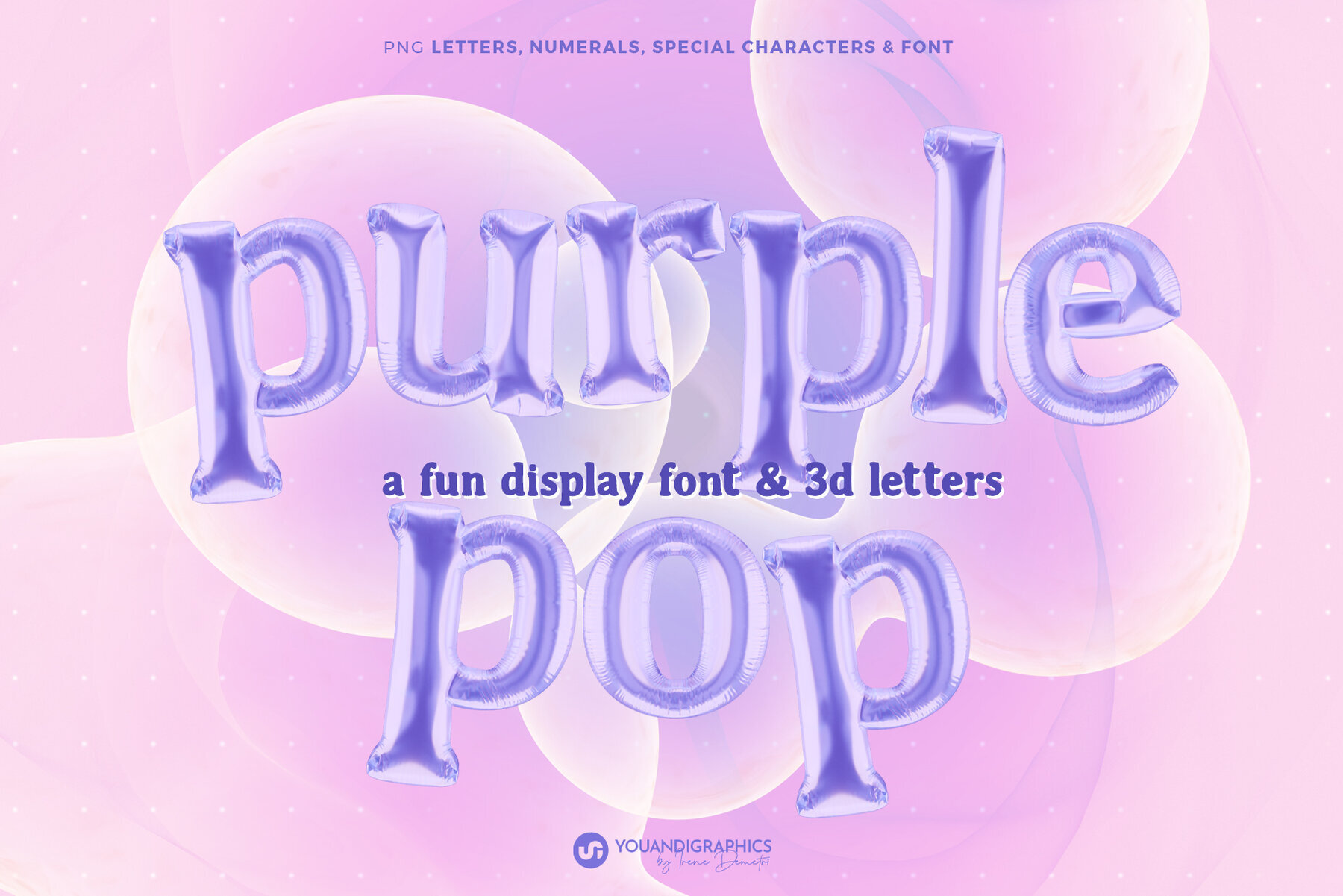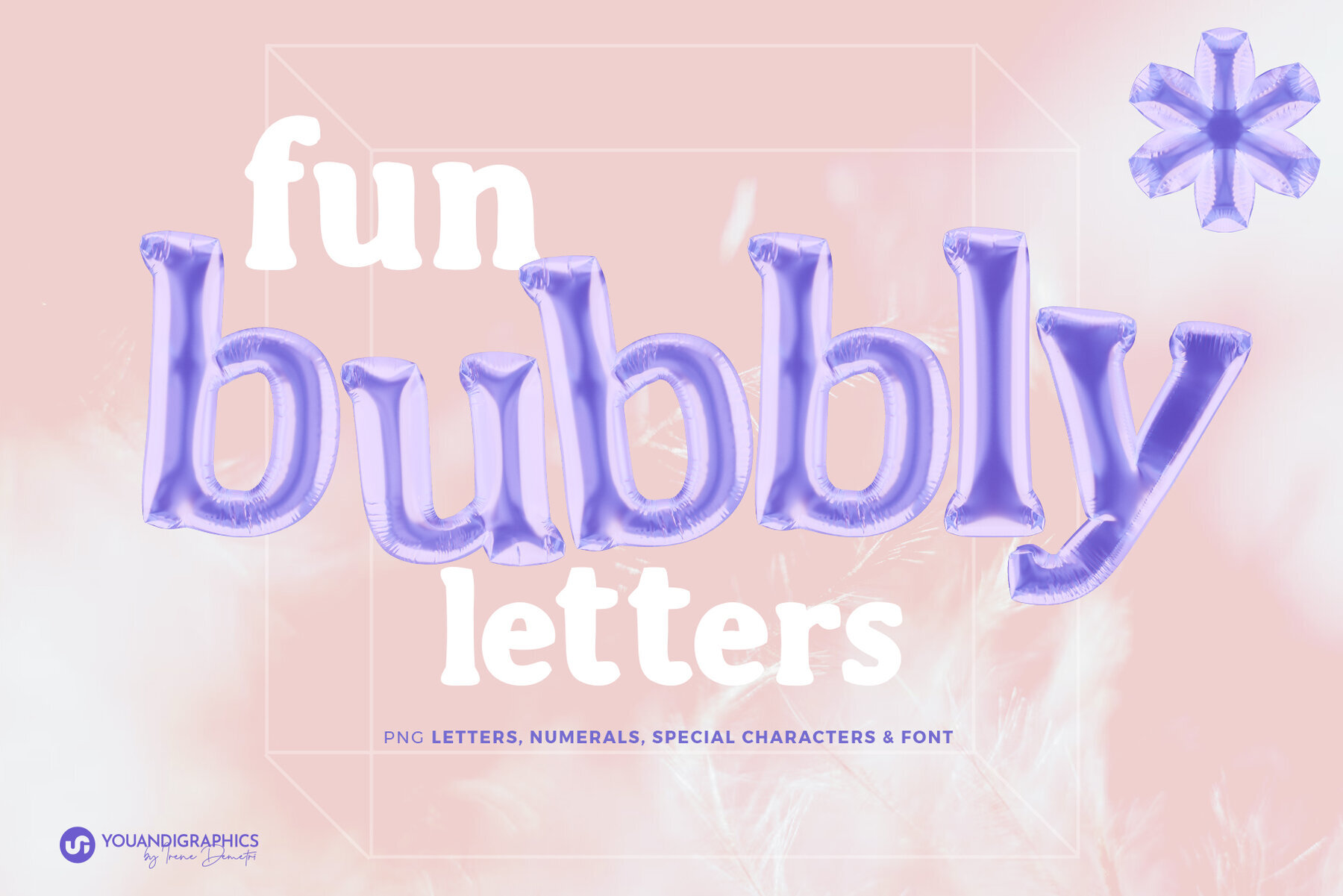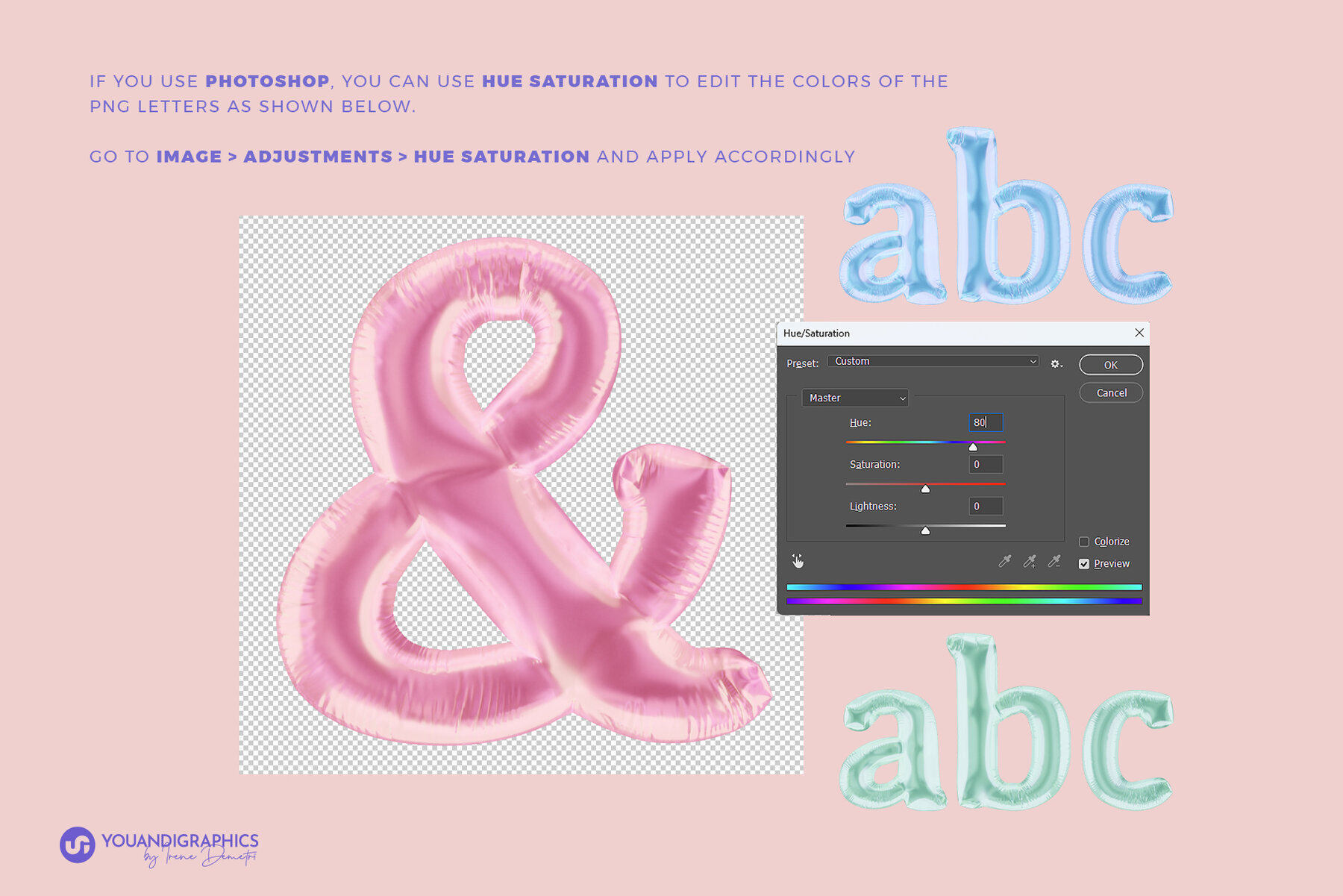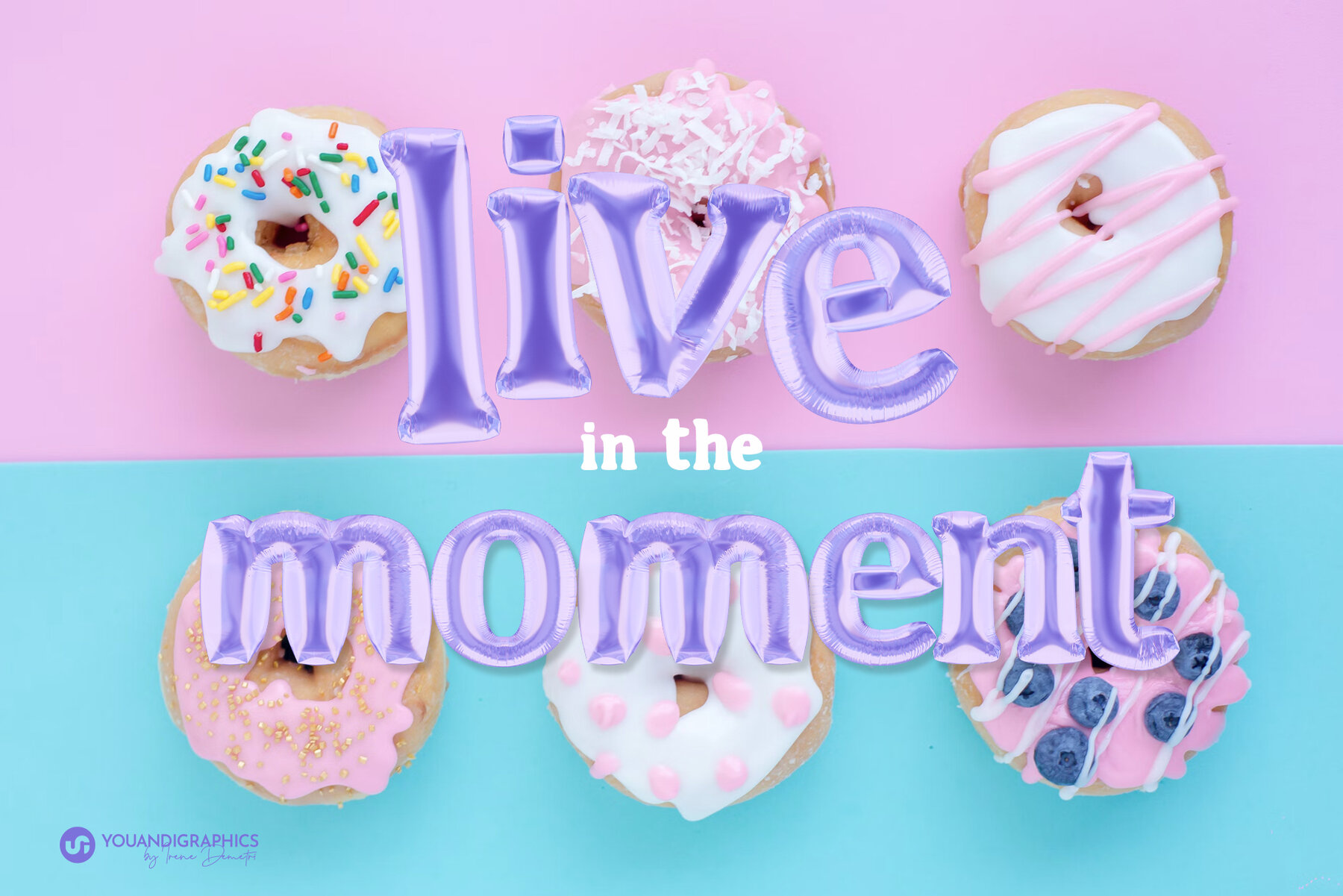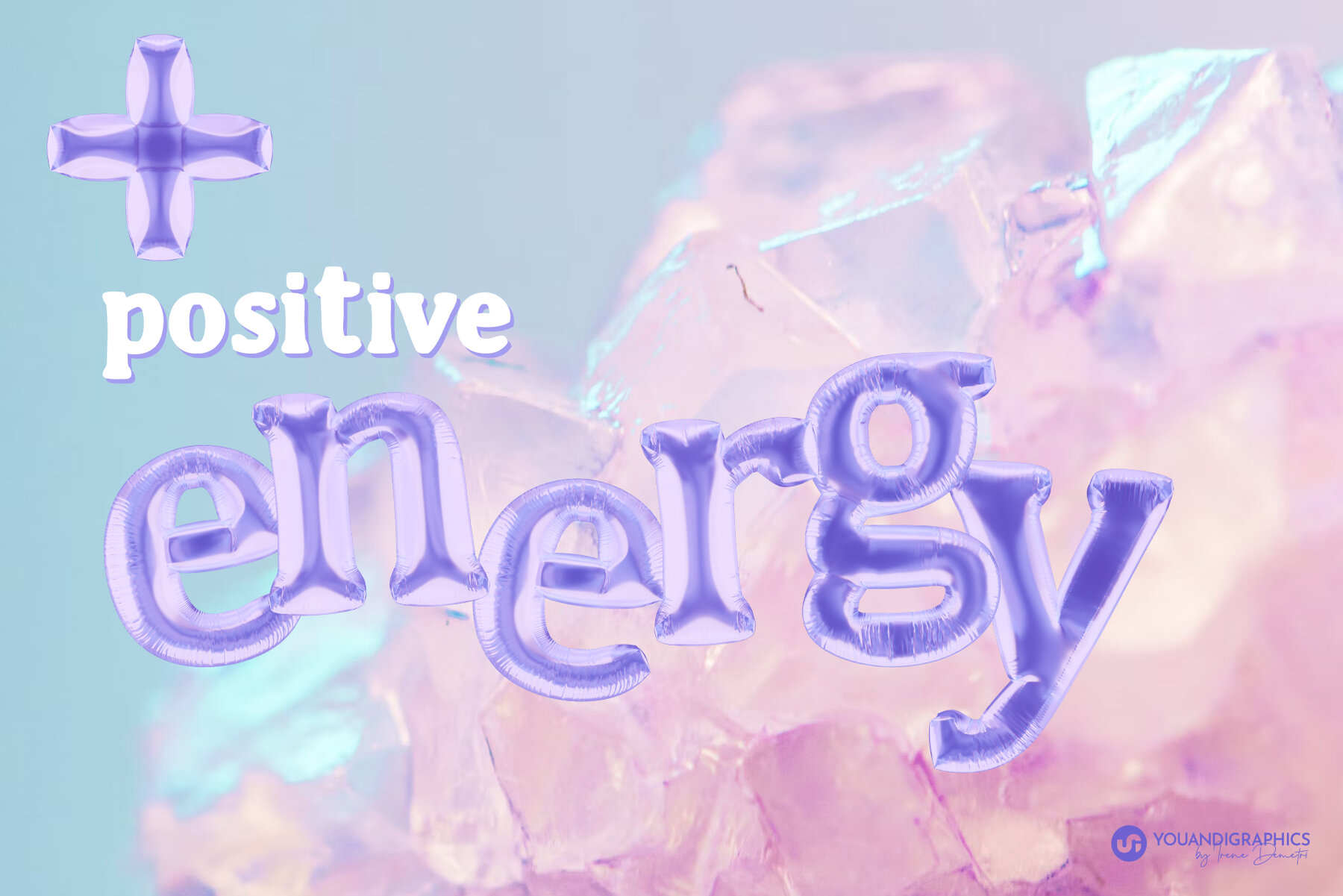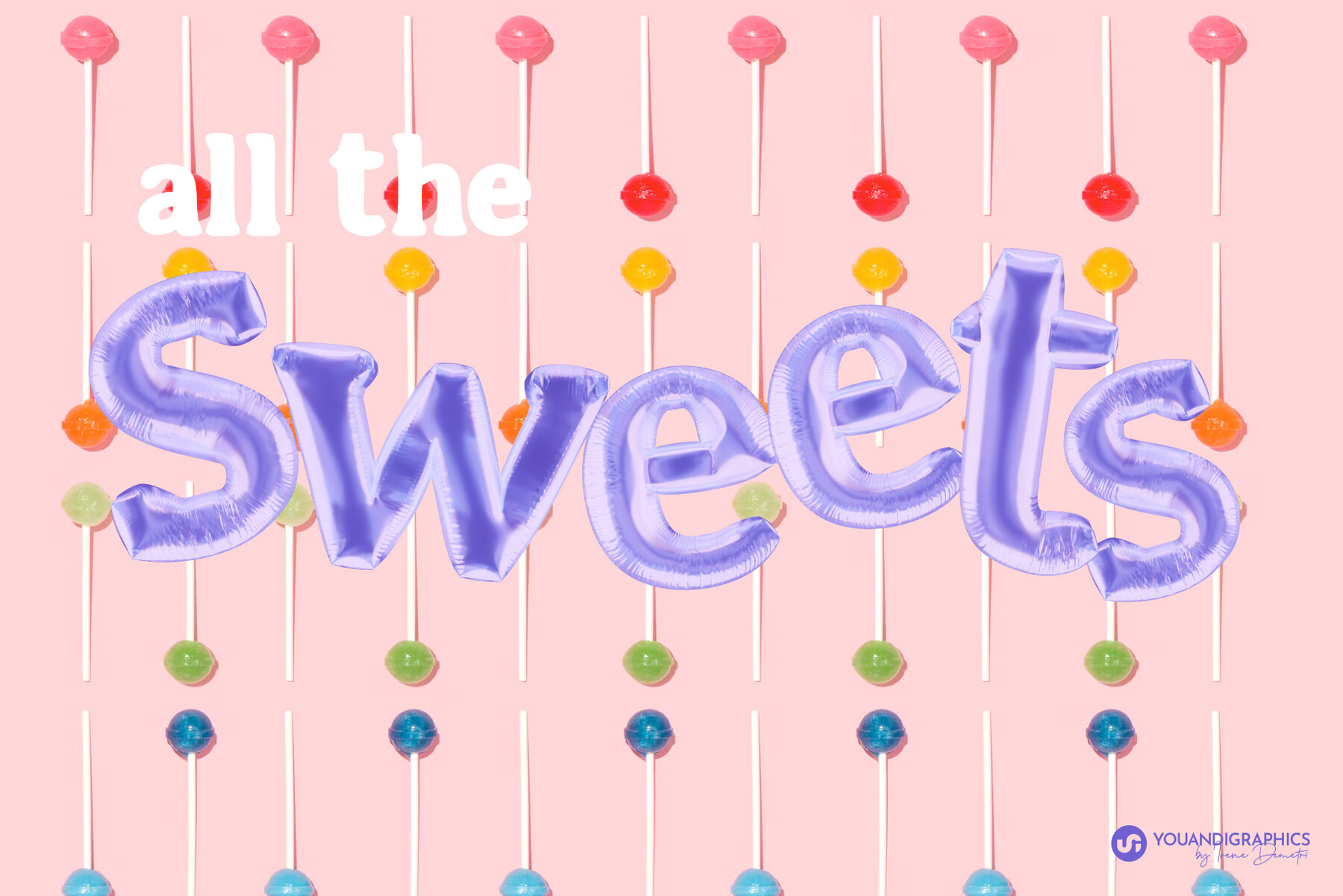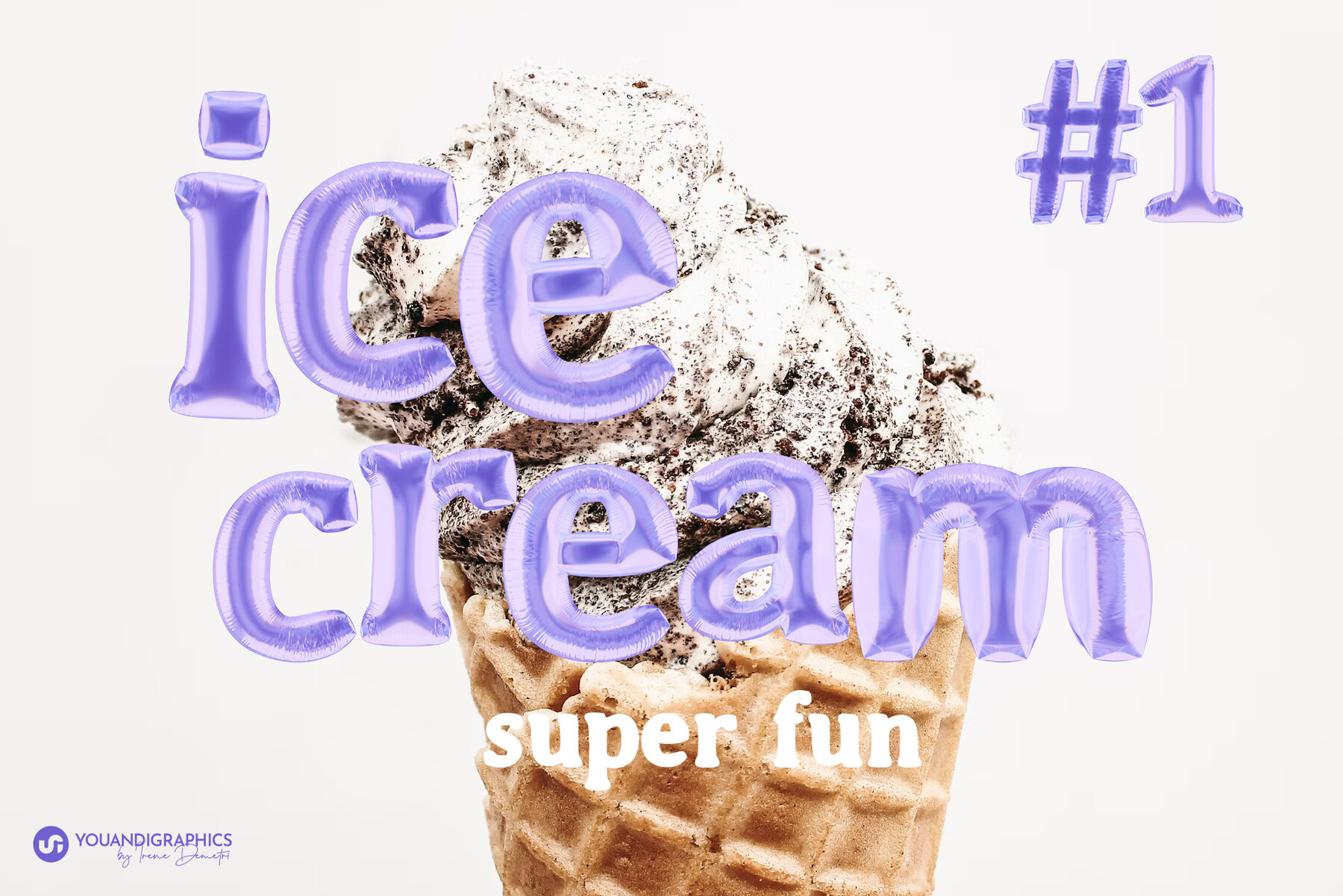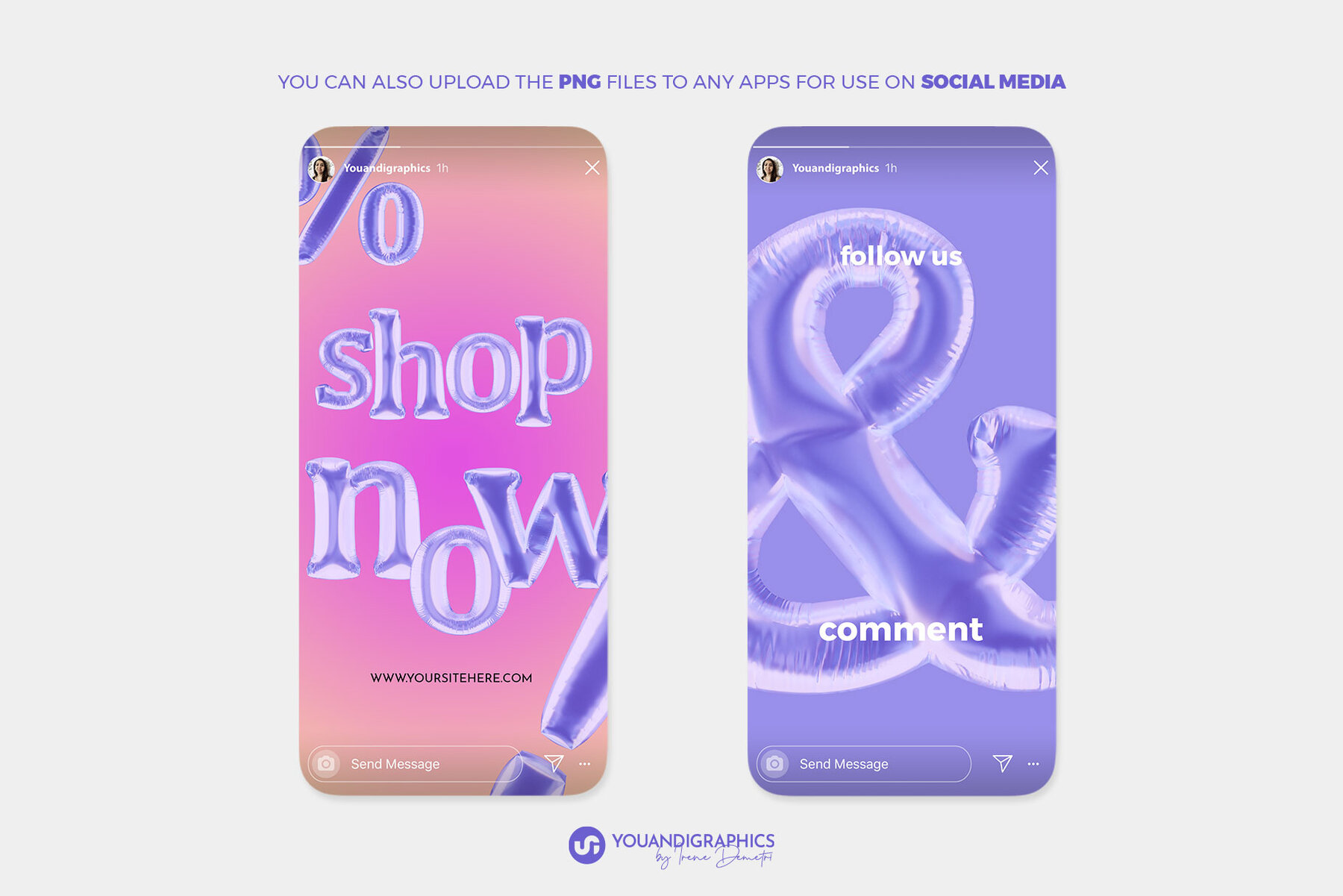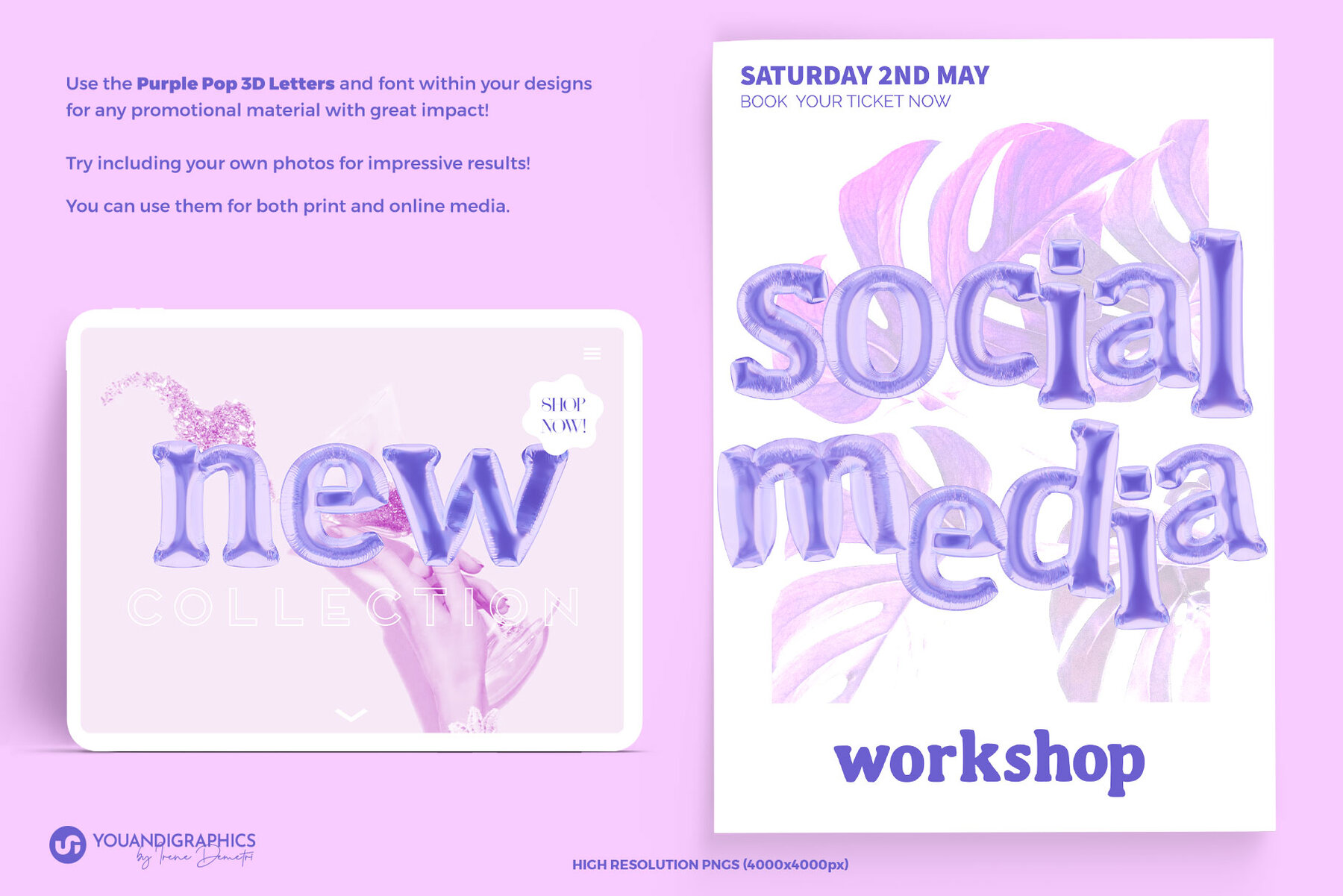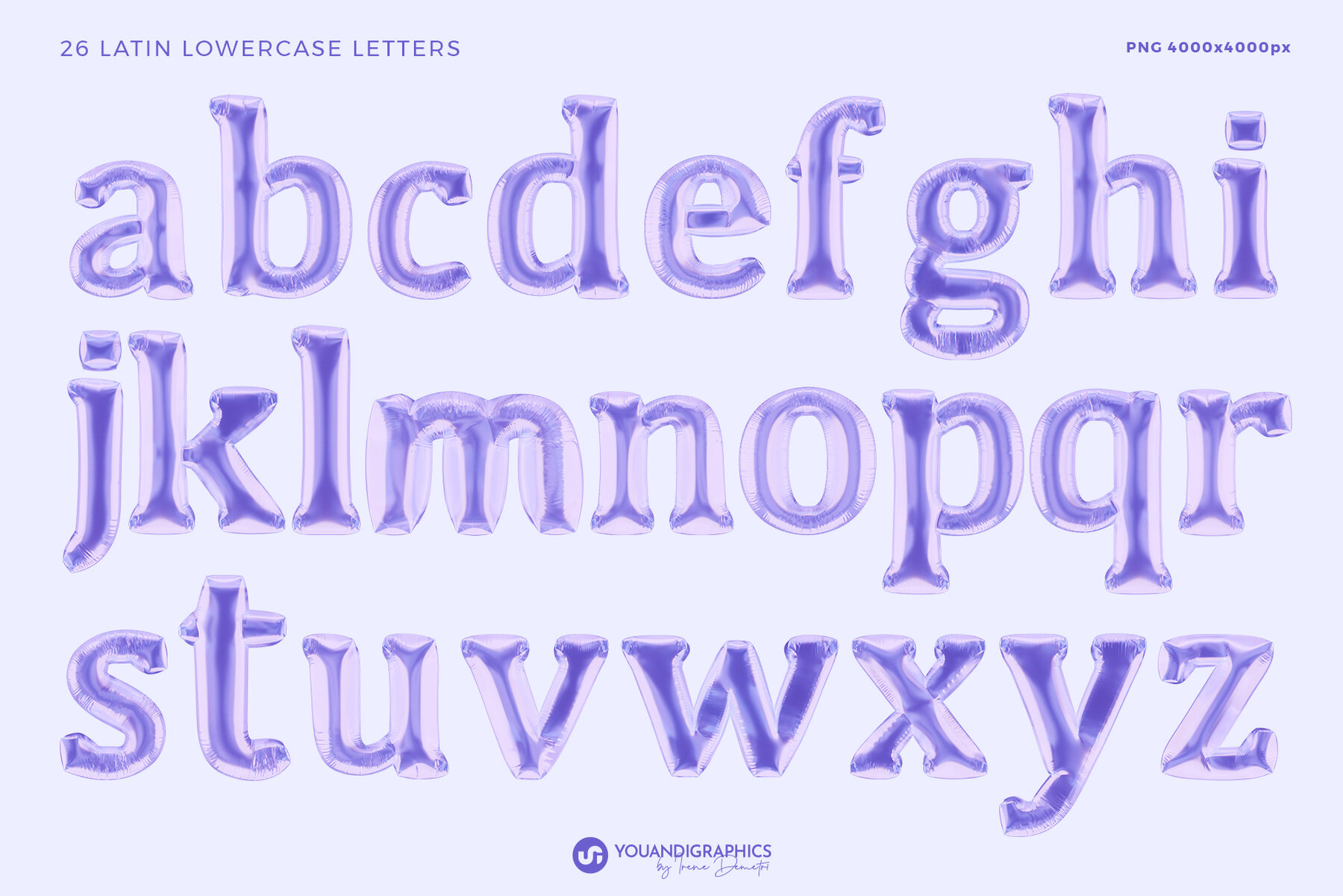
Purple Pop 3D Letters and Font Graphics
Purple Pop 3D Letters and Font is a collection featuring vibrant 3D PNG letters, numerals, and characters crafted in a fun purple foil balloon style, with a playful vibe. Additionally, enjoy the included font featuring plain flat characters for added flexibility in your creative projects. WHAT IS INCLUDED IN THIS PRODUCT: 26 PNG - Balloon Latin Lowercase Letters - Elements - approximately 4000x4000px 10 PNG - Balloon Numerals - Elements - approximately 4000x4000px 21 PNG - Balloon Punctuation, Symbols, Math - Elements - approximately 4000x4000px Font with all type elements flat (with no 3D effect)